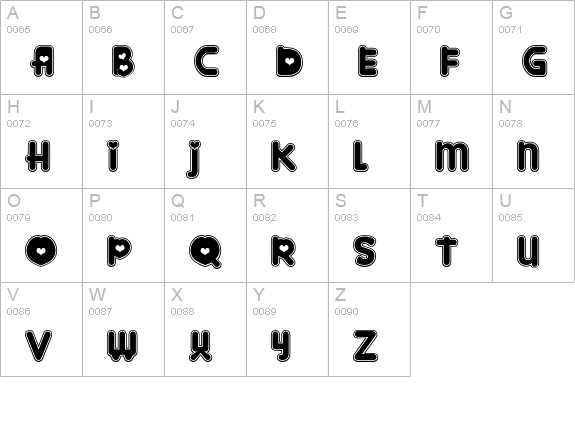
Kinkee Font Details
Introducing Kinkee font, a captivating and versatile typeface that will add a touch of modernity and elegance to your designs. This exquisite font is the perfect blend of contemporary design elements and classic letterforms, making it a truly unique and eye-catching choice for any project. With its sleek and sophisticated curves, Kinkee font effortlessly captures attention and creates a lasting impression. Whether you're designing a logo, branding materials, invitations, or website headers, this font will elevate your work to new heights of creativity. But what sets Kinkee font apart from the rest is not just its stunning aesthetics; it's also the fact that it is freely available to download at FontsMarket.com. Yes, you heard it right - this extraordinary font can be yours without any cost. FontsMarket.com is dedicated to providing designers with high-quality fonts that are accessible to everyone, and Kinkee font is a shining example of their commitment to excellence. Designed with precision and attention to detail, Kinkee font offers a wide range of weights and styles, allowing you to experiment and find the perfect combination for your project. From bold and impactful headlines to delicate and refined body text, this font has the versatility to adapt to any typographic need. The smooth and legible characters of Kinkee font make it an excellent choice for both print and digital media. Its clean lines ensure optimal readability even at smaller sizes, while its impeccable spacing and kerning guarantee a harmonious flow of text. Whether you're working on a poster, a magazine layout, or a website design, Kinkee font will provide a polished and professional finish. So why wait? Discover the beauty of Kinkee font today and unleash your creativity like never before. Download this remarkable font for free at FontsMarket.com and embark on a typographic journey that will captivate and inspire. Let Kinkee font be the driving force behind your next design project, and watch as it transforms your vision into a masterpiece.